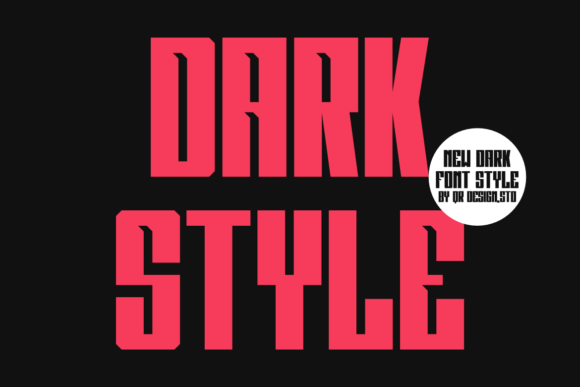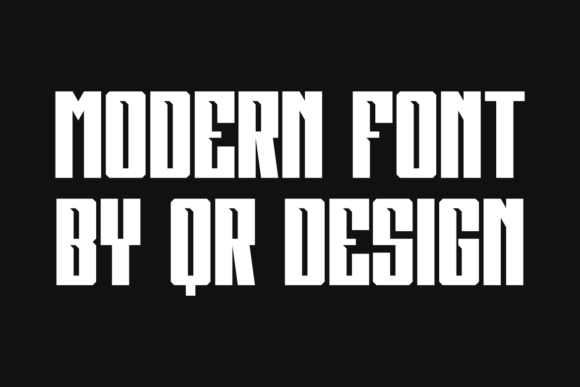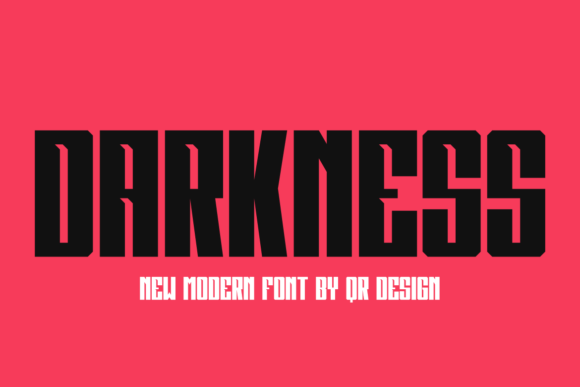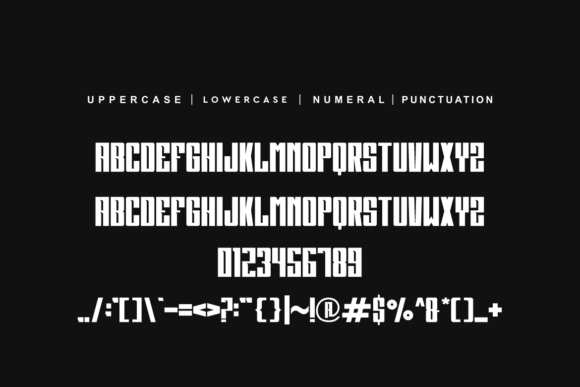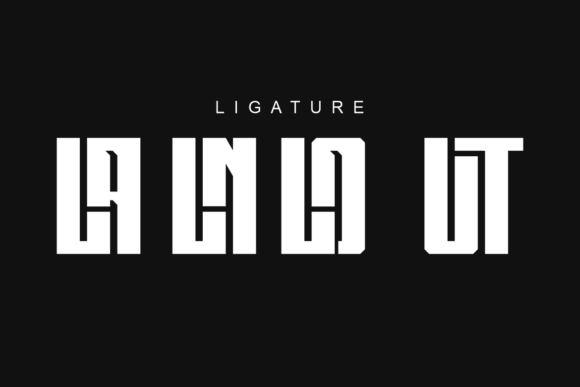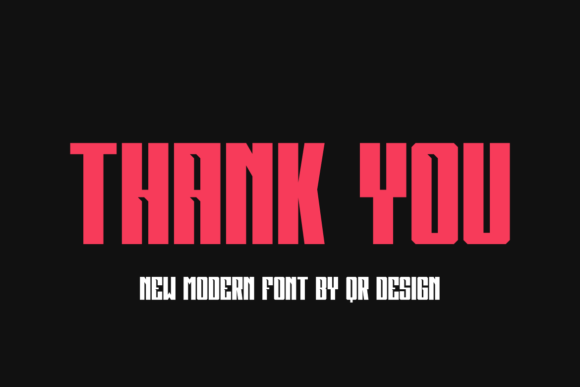
The Ultimate Font for Dark and Moody Designs: Black Melongout
I’ll never forget the time I was working on a project for a client who wanted a dark and edgy design. I had spent hours scouring the internet for the perfect font, but nothing seemed quite right. That was until I stumbled upon Black Melongout, a cool and dark sans display font that completely transformed my design. In this article, I’ll share my experience with Black Melongout, its features, and how to make the most of it in your designs.
An Honest Review of Black Melongout
• ✨ Its sleek and modern design makes it perfect for dark and moody themes
• ✅ The font is highly versatile and can be used for a wide range of projects, from posters to social media graphics
• 💡 The OpenType features and glyphs offer endless possibilities for customization
• 👍 The font is easy to read, even in large sizes
While Black Melongout is an amazing font, there are a few things to keep in mind:
• 🤔 The font can be a bit overpowering if not used carefully, so it’s essential to balance it with other design elements
• ⚠️ Some of the more intricate glyphs may not display correctly in older software or browsers
The Backstory Behind Black Melongout
Black Melongout was designed by a team of creatives who wanted to create a font that would add a touch of darkness and sophistication to any design. Inspired by the urban landscape and modern typography, Black Melongout is the perfect font for designers who want to push the boundaries of creativity.
Q: What type of projects is Black Melongout best suited for?
A: Black Melongout is a versatile font that can be used for a wide range of projects, from posters and flyers to social media graphics and branding.